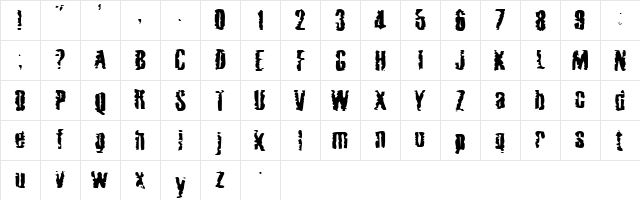
Mardi Gross Drunktype Free Font
Mardi Gross Drunktype
Style: Drunktype
Design Context for Mardi Gross
Mardi Gross is a composed and adaptable typeface that performs quietly and consistently across a wide range of design contexts.